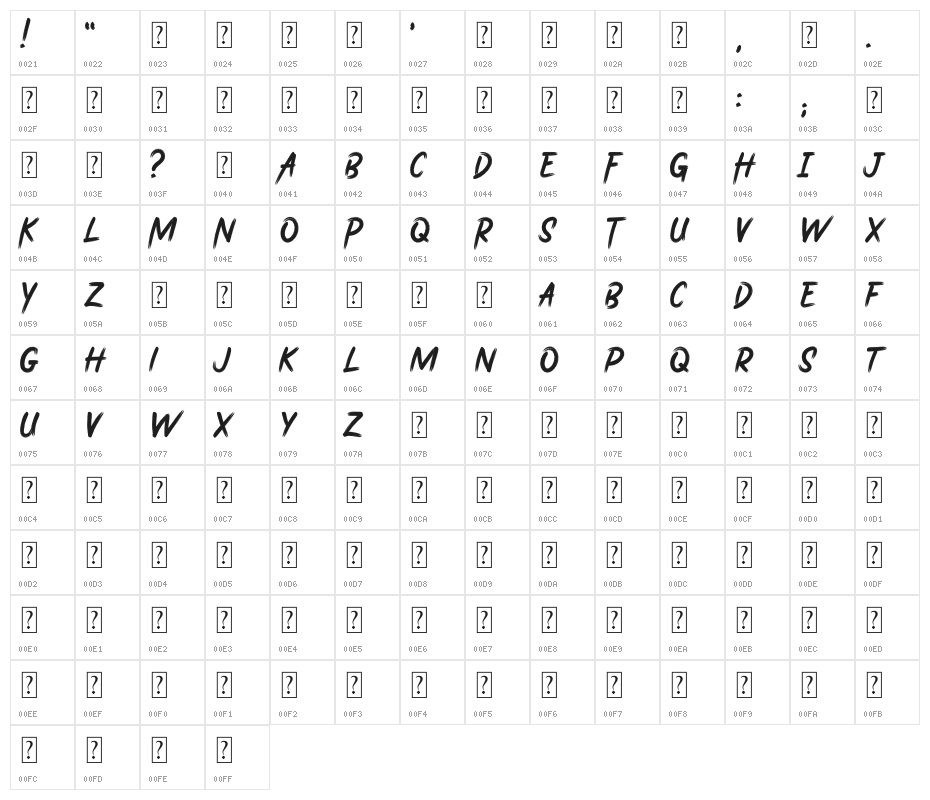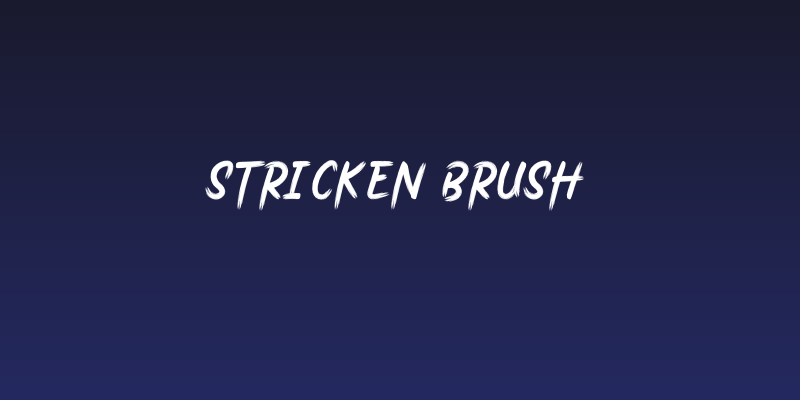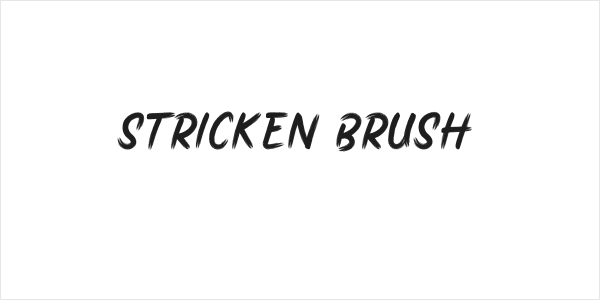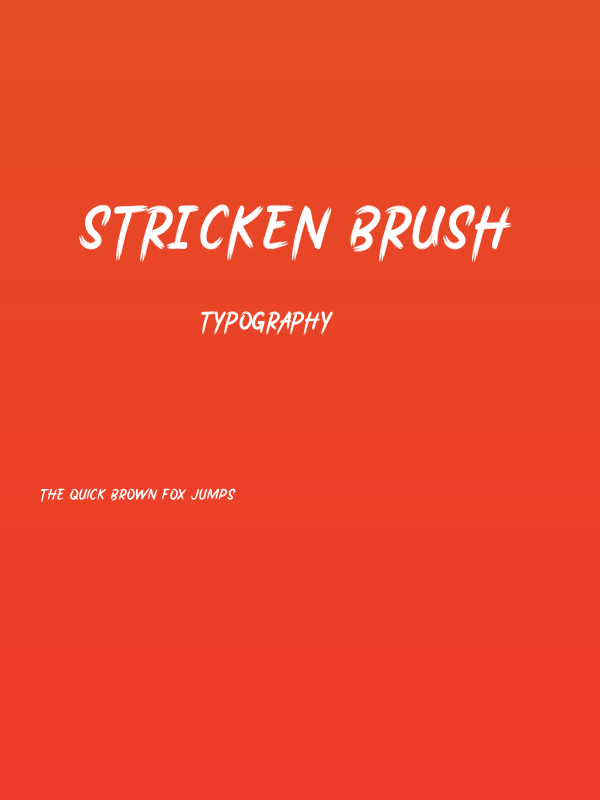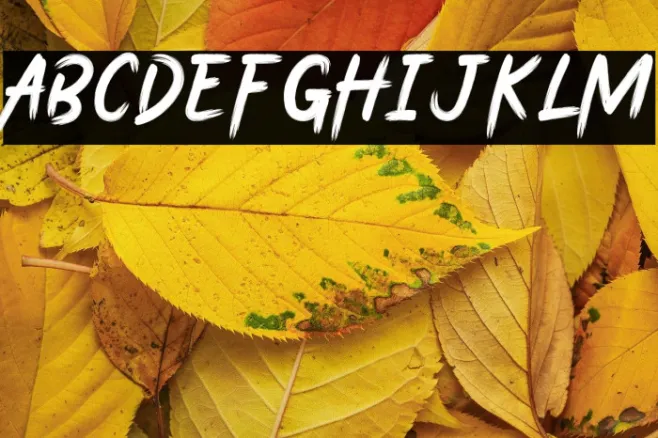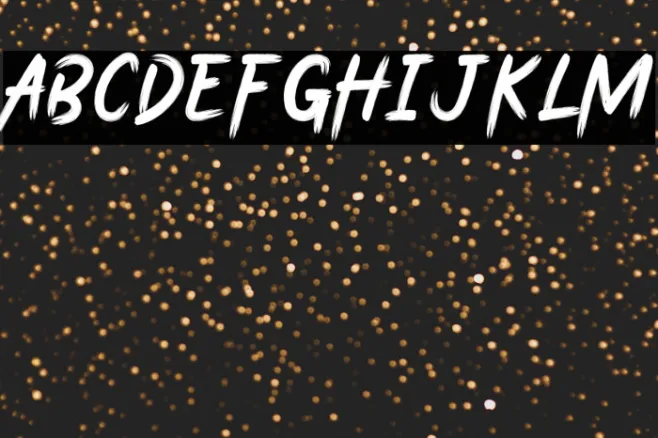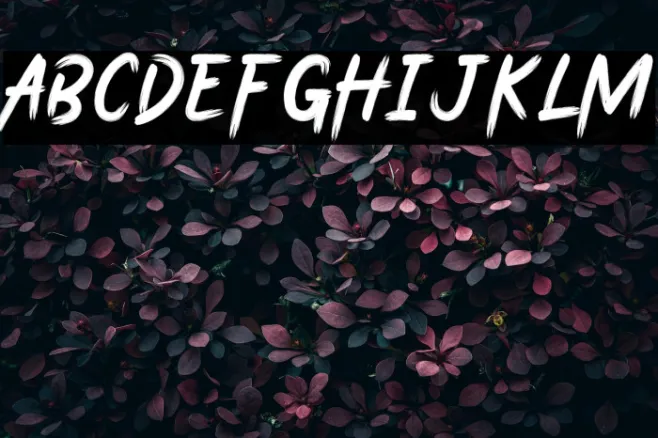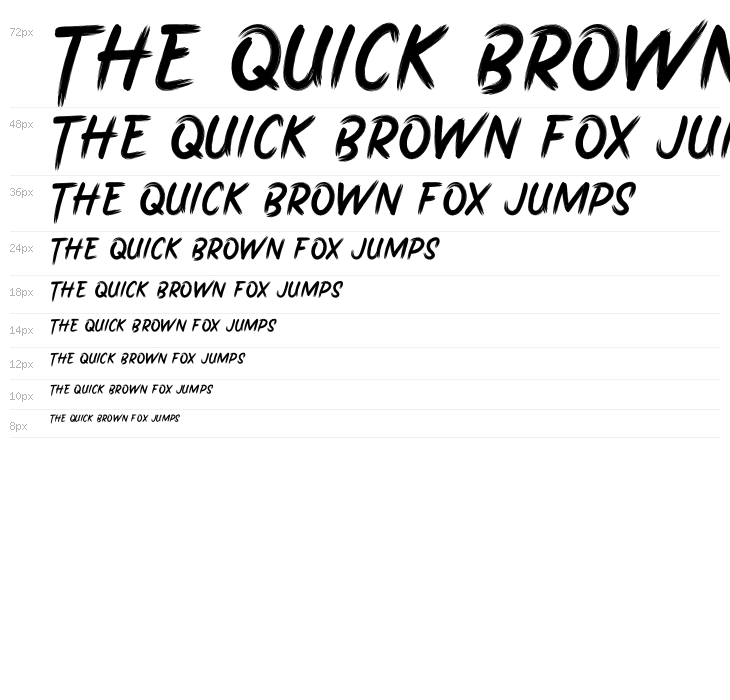
Stricken Brush Font
Stricken Brush Description
This font features a dynamic and energetic brush style, characterized by bold, sweeping strokes that convey a sense of movement and fluidity. The uppercase letters are particularly striking, with each character exhibiting unique brush textures that add depth and personality. The lowercase letters maintain the same lively aesthetic, ensuring consistency throughout. The font's design is reminiscent of hand-painted signage, making it ideal for projects that require a personal touch. Its bold appearance ensures readability while still offering a distinctive artistic flair.